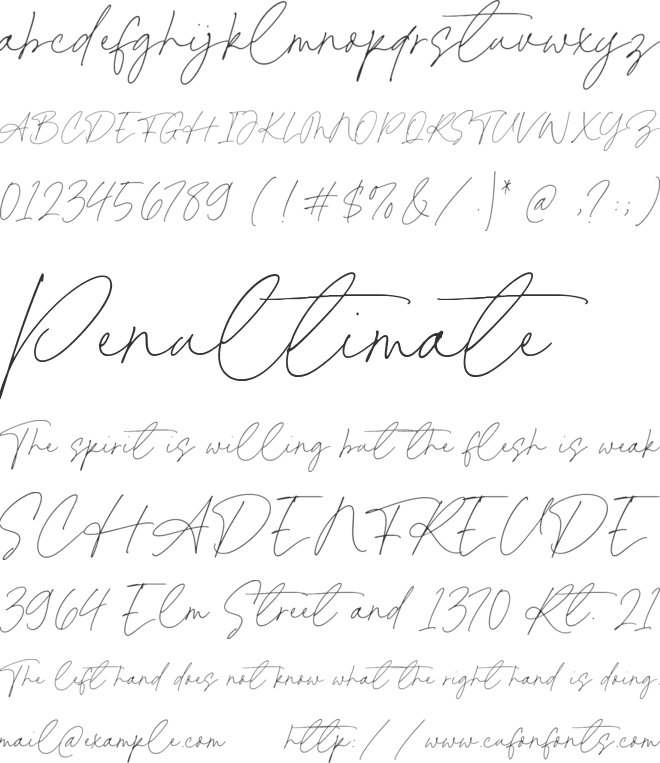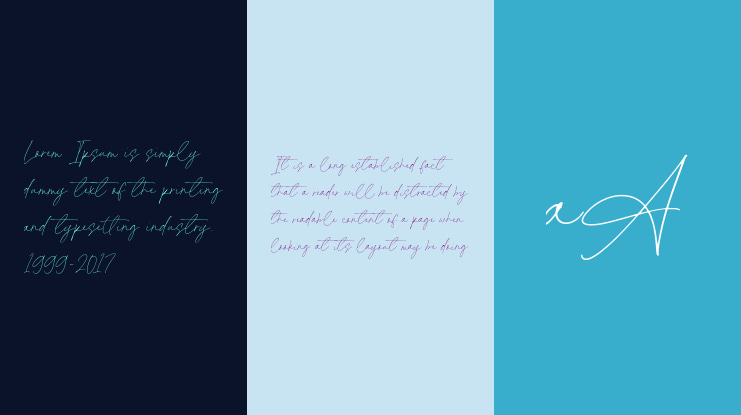
Presented by Timurtype Studio, Fiance Rosalie is an exquisite Modern Handwritten Font that adds a touch of elegance to your design projects. Its sleek and fluid letterforms effortlessly blend sophistication with a hint of informality, making it a fashionable choice. The clean lines and graceful curves of the Fiance Rosalie font create a modern and chic aesthetic, ideal for infusing a trendy edge into your branding materials, invitations, and social media graphics. Whether you're aiming for a polished and professional appearance or a more laid-back and friendly vibe, the Fiance Rosalie font offers versatility and style. Experience the contemporary sophistication of the Fiance Rosalie handwritten font and enhance your designs with its refined allure.